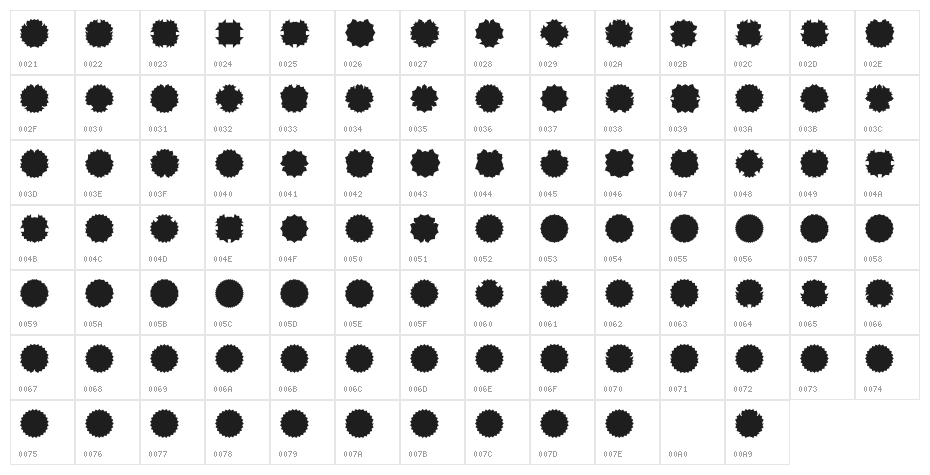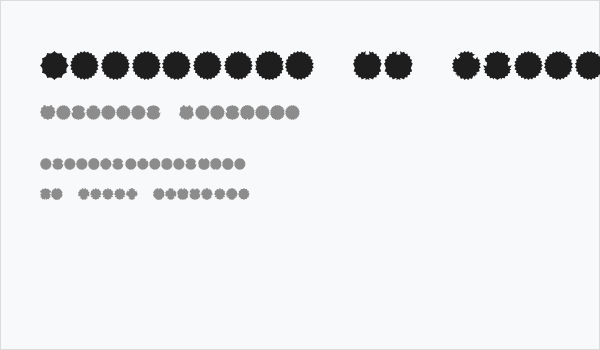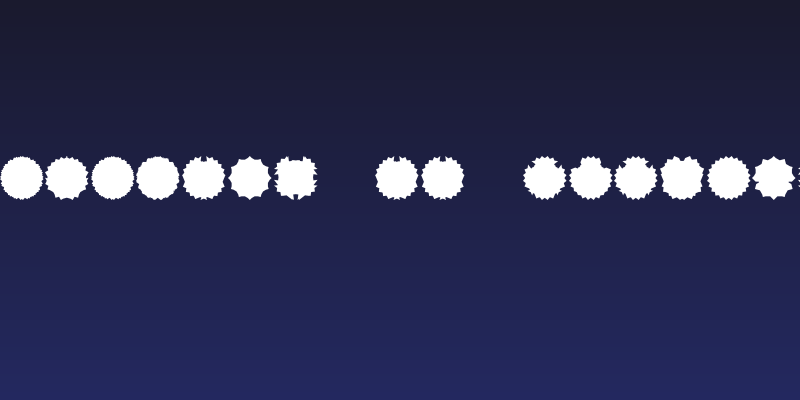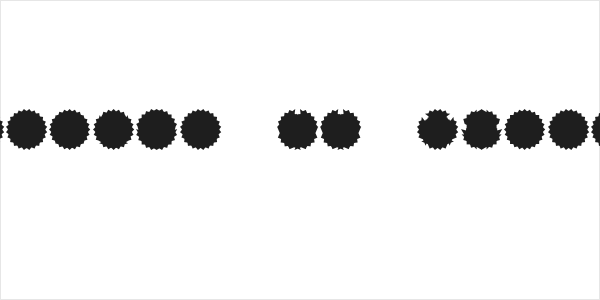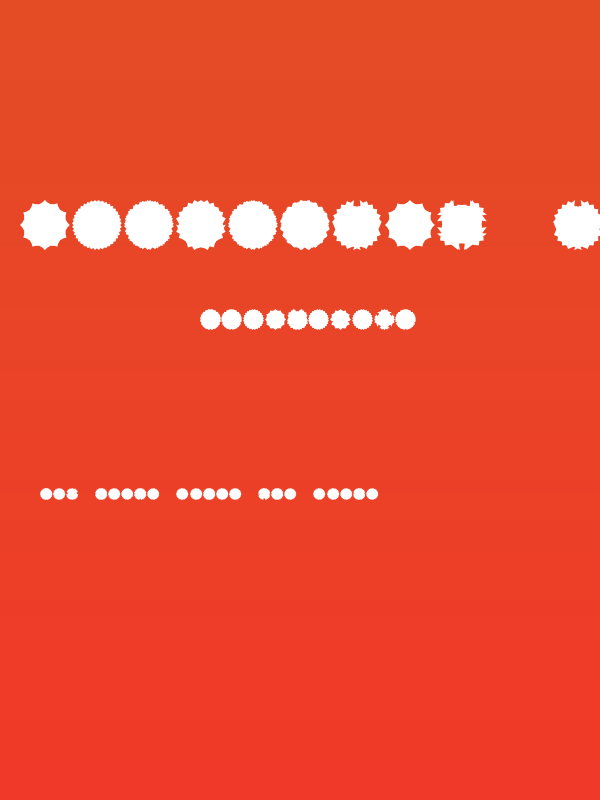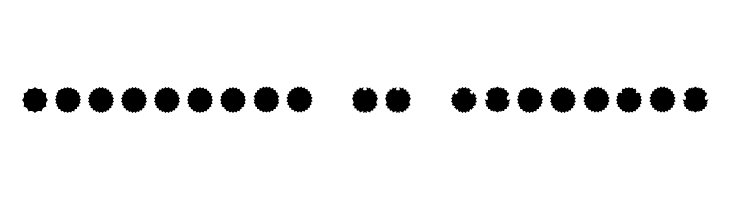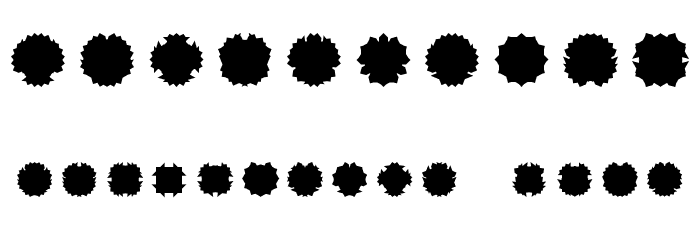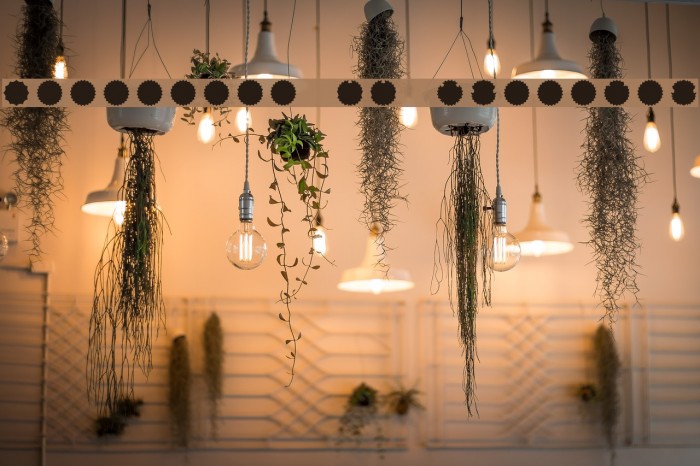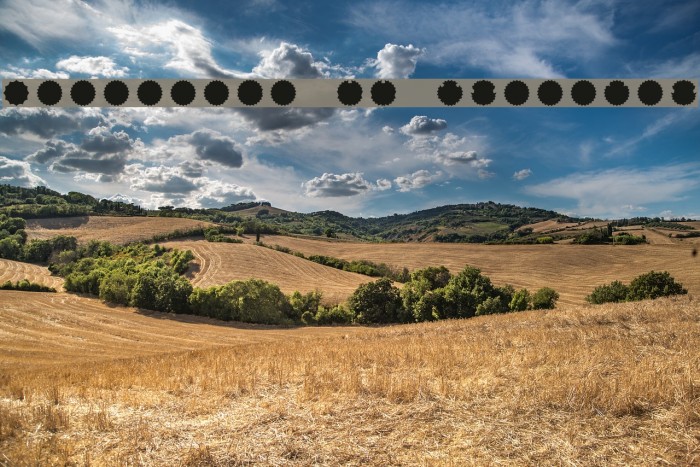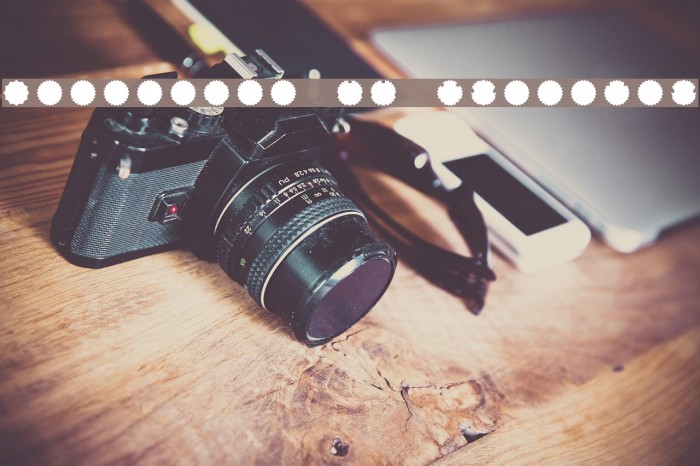
Ovulution II Membrane Font
Ovulution II Membrane Description
A highly decorative and abstract typeface where each character is represented by a spiky, circular, or irregular membrane-like silhouette, making individual letterforms nearly indistinguishable and emphasizing organic, cellular shapes.
| Overall Style | Decorative, Abstract, Organic |
| Use Case | Logos, Posters, Experimental Headlines |
| Proposed Projects | Album covers, experimental posters, science fiction titles, avant-garde branding, abstract art projects. |